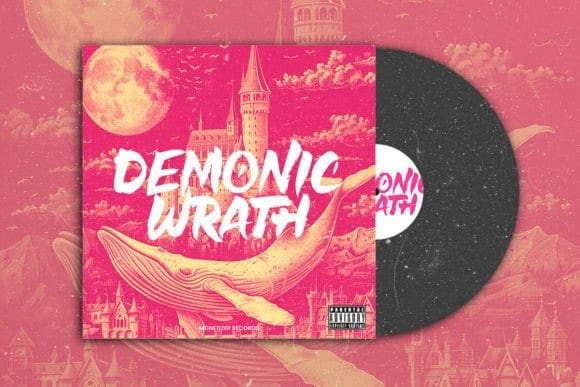
Cargano Brush Font
Cargano Brush Font, with its dynamic dan casual brush strokes, this font designed to make headlines pop with energy and attitude. Perfect for headlines in the world of sports and skateboarding, its energetic strokes evoke the adrenaline and excitement of the game.